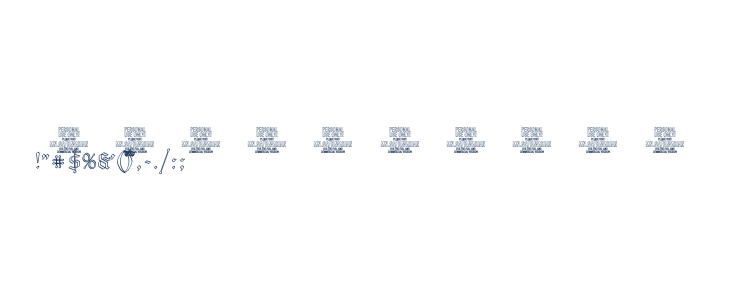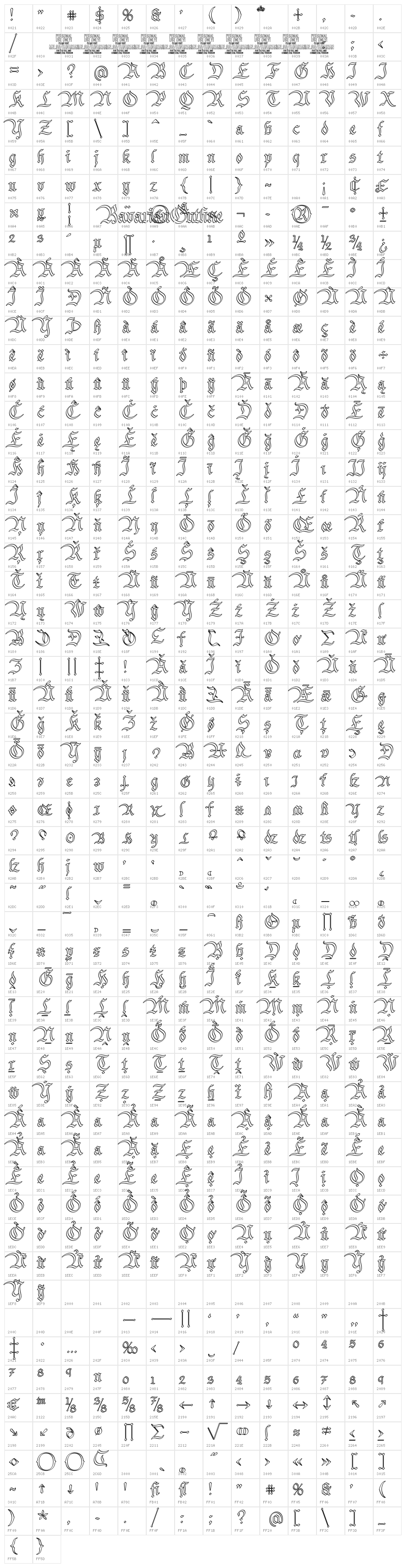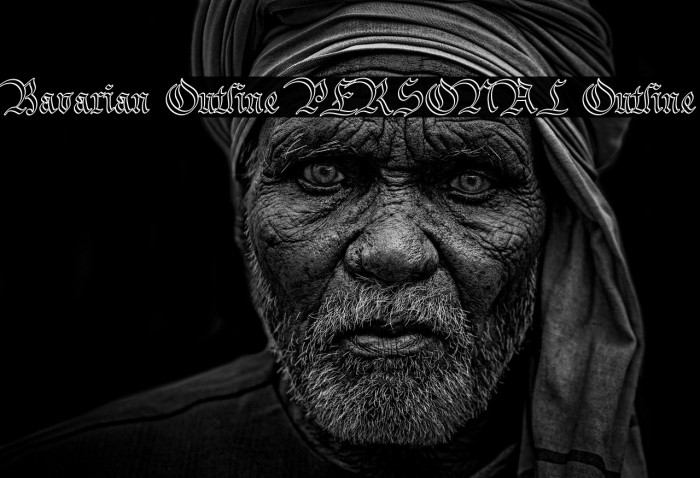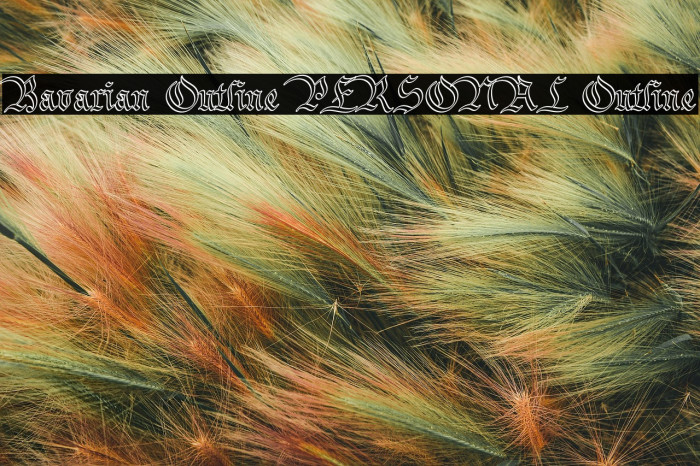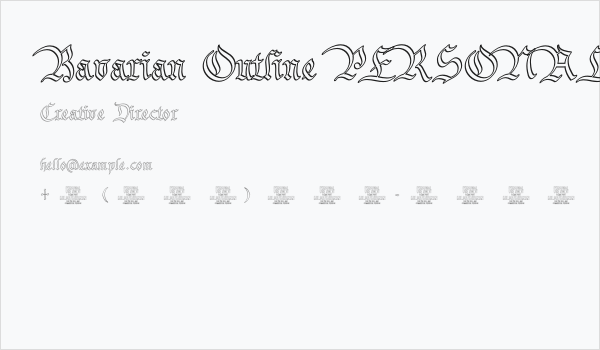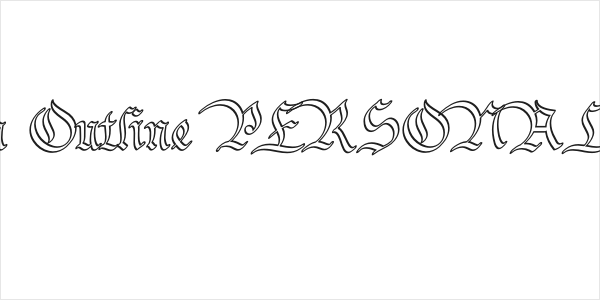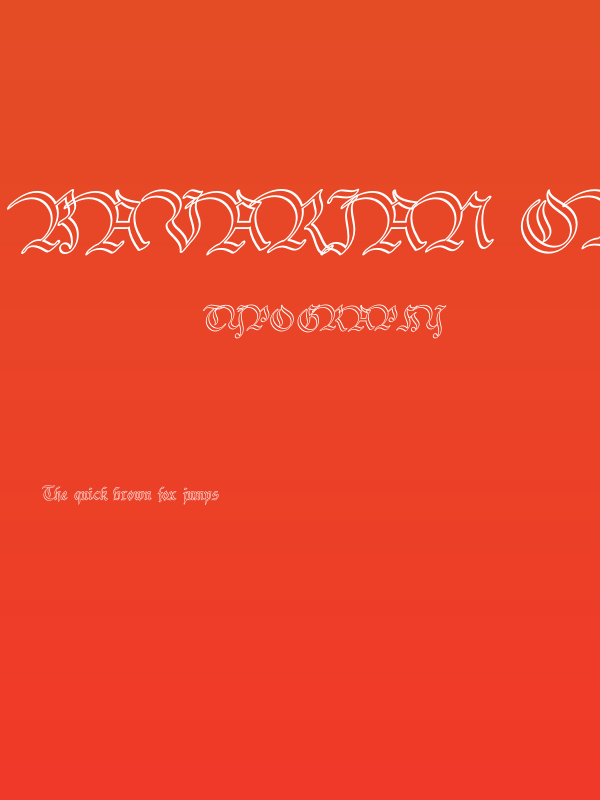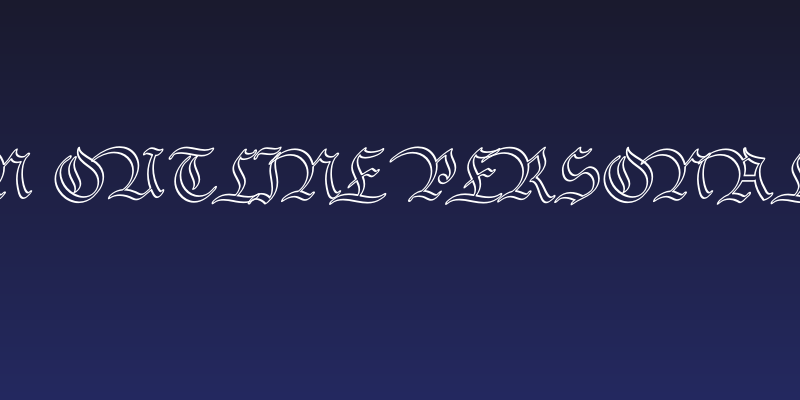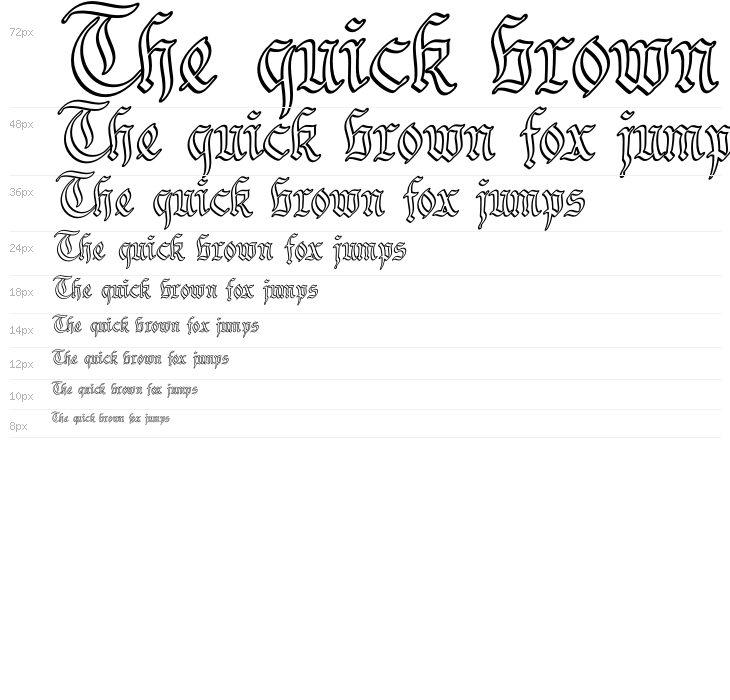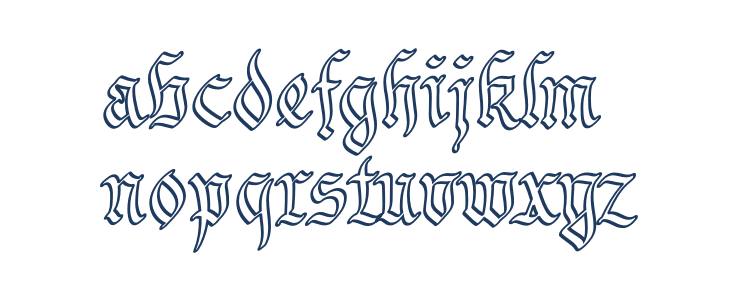
Bavarian Outline PERSONAL Outline Font
Bavarian Outline PERSONAL Outline Description
This font features an intricate and ornate design reminiscent of traditional Blackletter styles, often associated with historical and medieval themes. The characters are outlined, giving them a distinct and bold appearance while maintaining a sense of elegance and formality. The uppercase and lowercase letters are highly stylized, with sharp angles and decorative flourishes that enhance their visual impact. The numerals and special characters follow the same elaborate design, ensuring consistency throughout the font. This style is particularly effective for creating a dramatic and historical aesthetic.